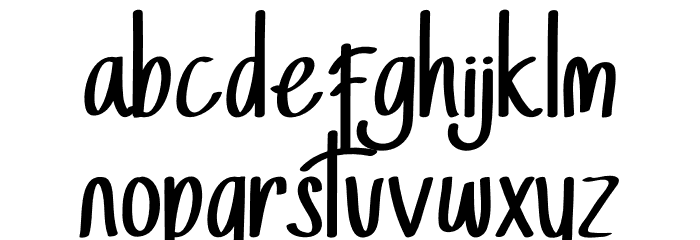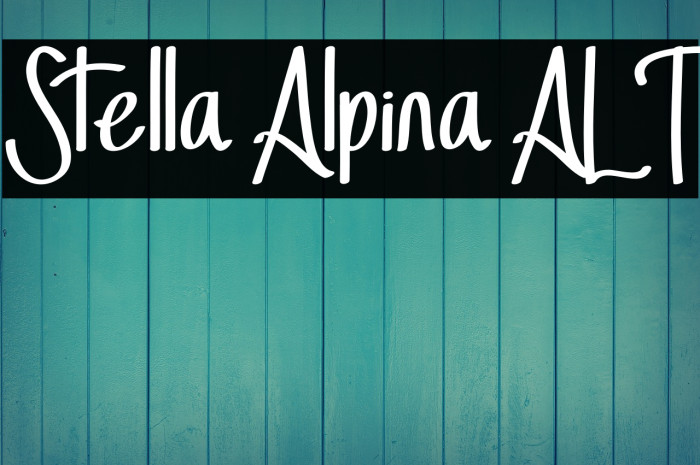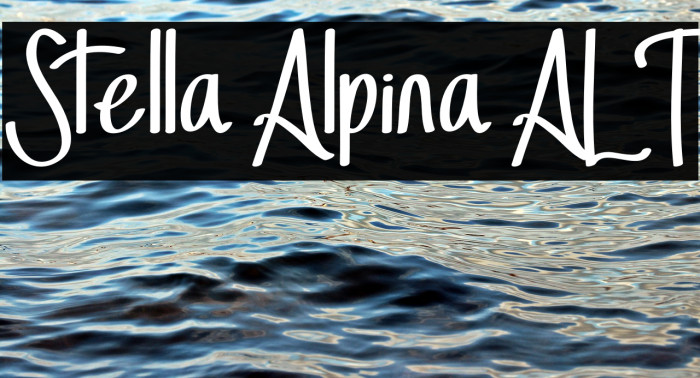
Stella Alpina ALT Font
This font features a playful and dynamic handwritten style, characterized by its tall, narrow letterforms and slightly irregular strokes. The uppercase letters exhibit a whimsical flair, with varying stroke widths that add a sense of movement and energy. The lowercase letters maintain a consistent style, complementing the uppercase with their own unique charm. Numbers and special characters follow the same lively aesthetic, ensuring a cohesive look across all text elements. The overall appearance is both casual and artistic, making it suitable for projects that require a personal touch.
A playful, handwritten font with tall, narrow letterforms and dynamic strokes.
- Proposed Projects: Ideal for greeting cards, invitations, personal branding, and creative projects that benefit from a whimsical, handwritten touch.
- Overall Style: Casual, Artistic
- Use Case: Headlines, Logos, Creative projects